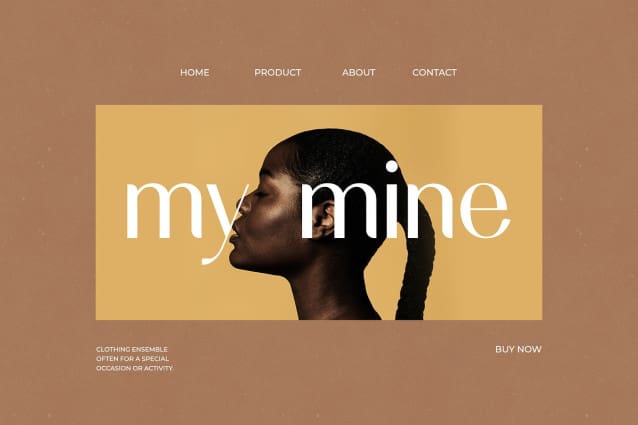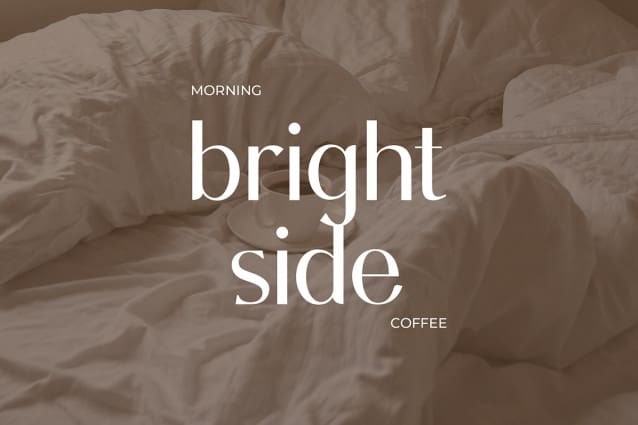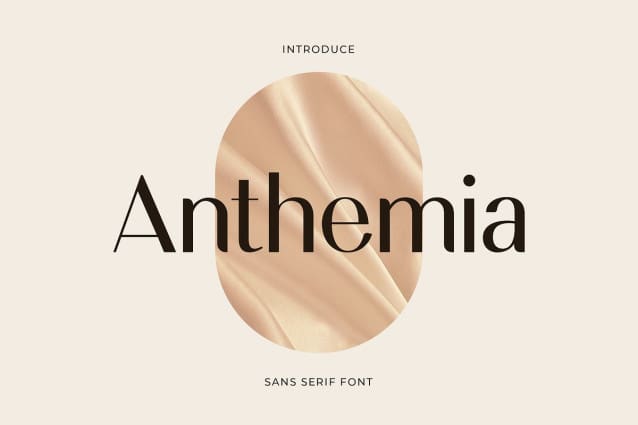
Anthemia Font
Anthemia Font – Modern Sans font that feels beautiful classy, elegant, and modern. This font is ideally suited for a wide variety of projects, such as signature, stationery, logo, wedding, typography quotes, magazine or book covers, website headers, clothing, branding, packaging design, and more. Also, fashion-related branding or editorial design displays both masculine and feminine qualities.